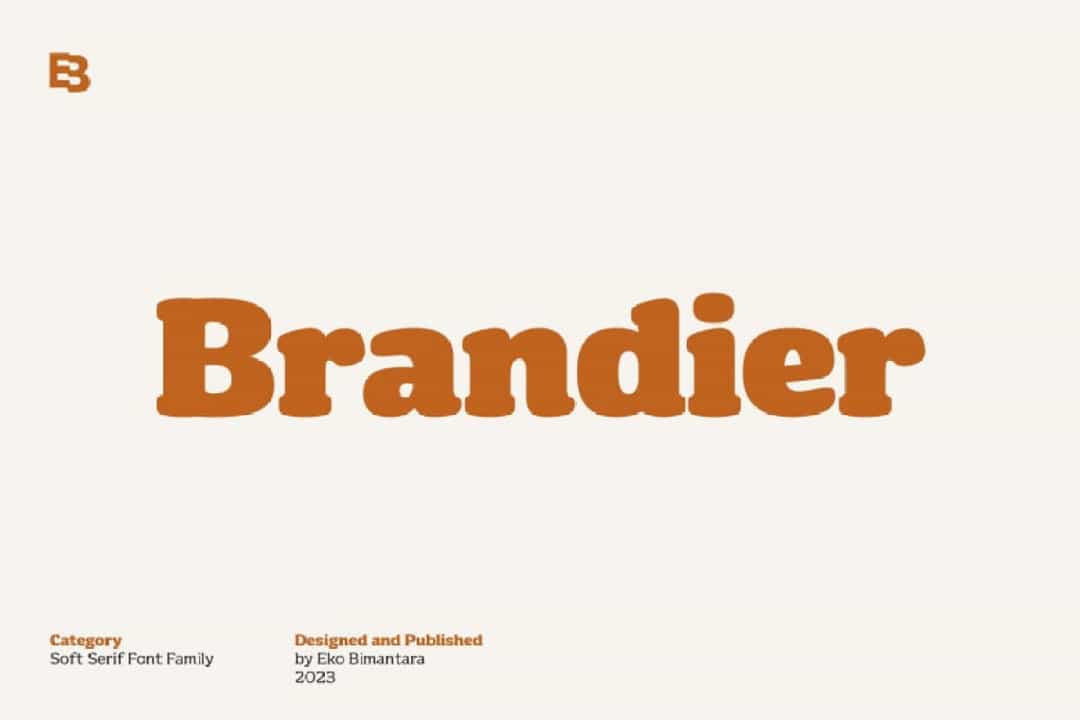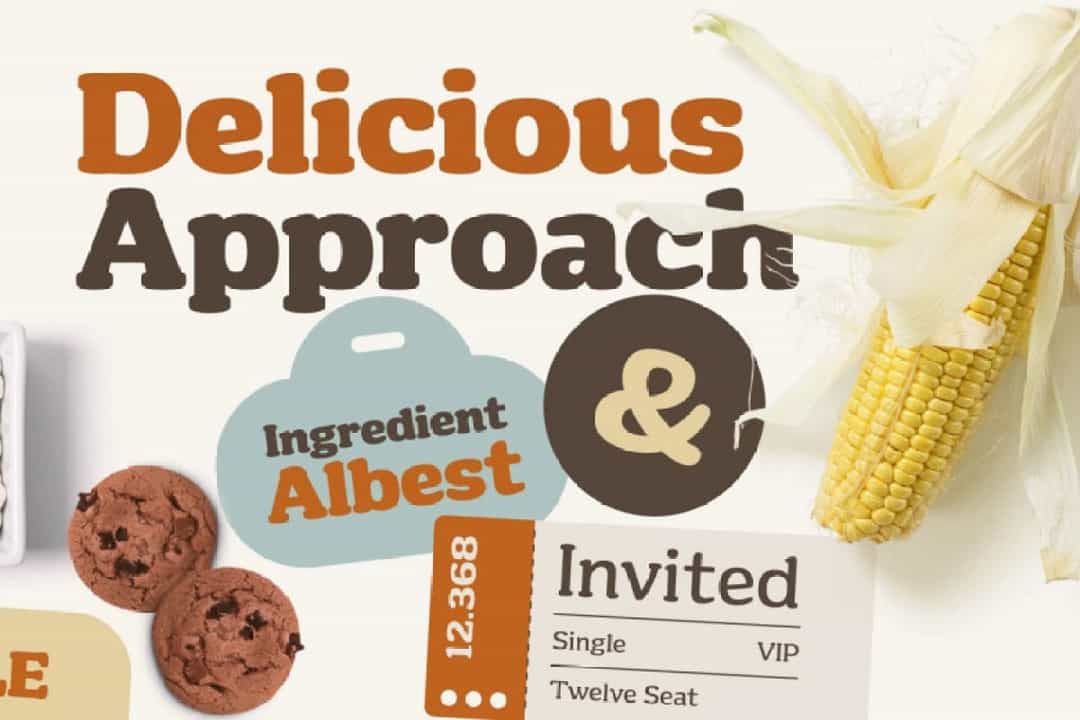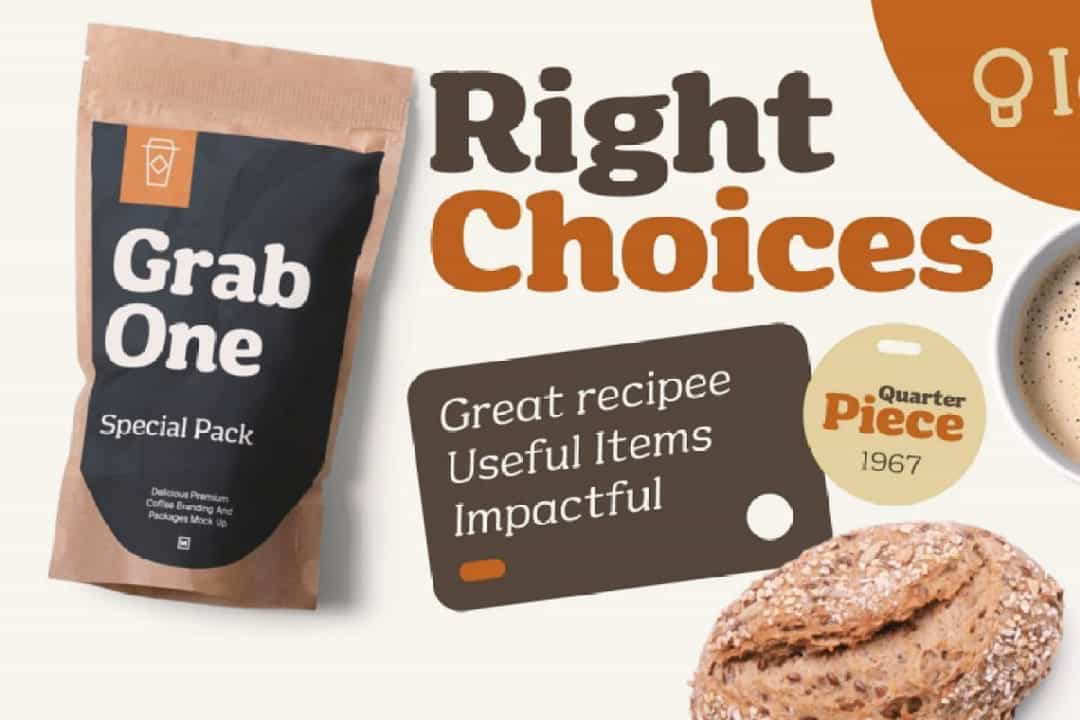
Brandier font represents the delicate style of typography from the seventies, featuring soft edges and stunning designs with heavy weights. Brandier offers warmth and fun through its large x-height as well as well-balanced regular and italics styles for a pleasant reading experience – making it suitable for display, text usage as well as logo, web design projects. It makes an excellent addition to your library.